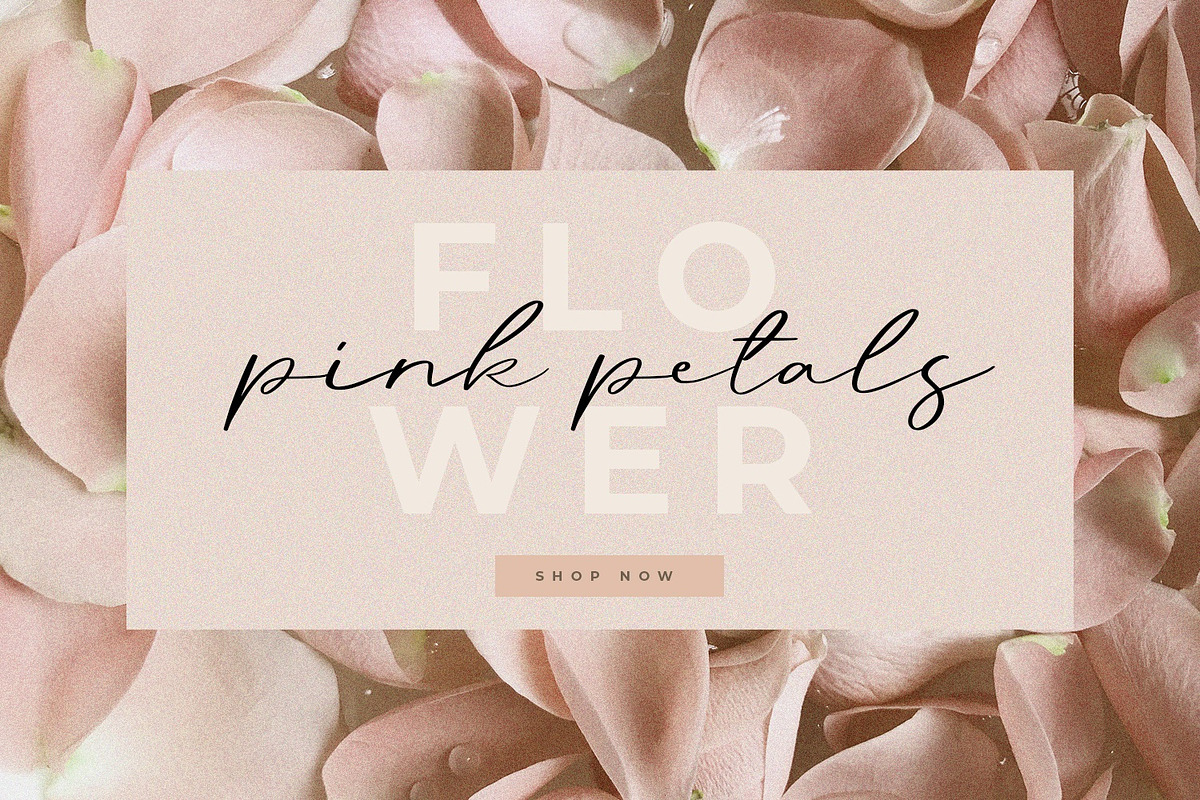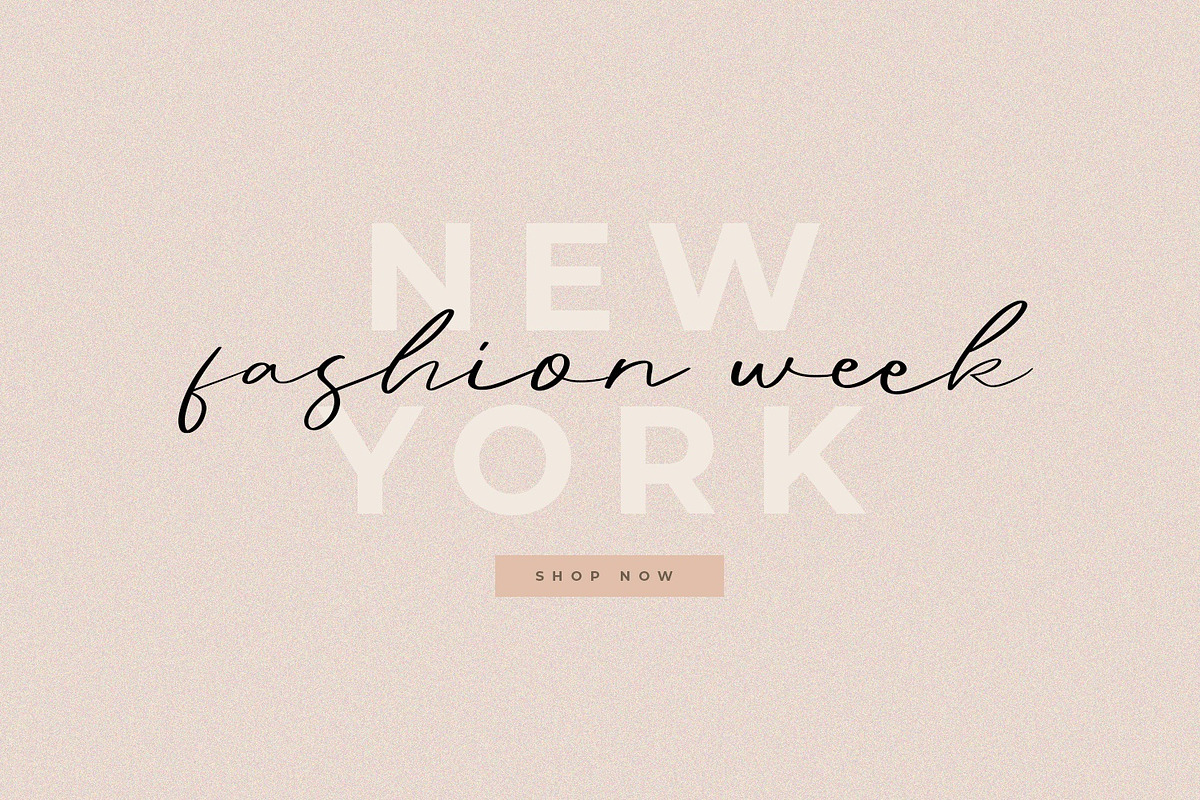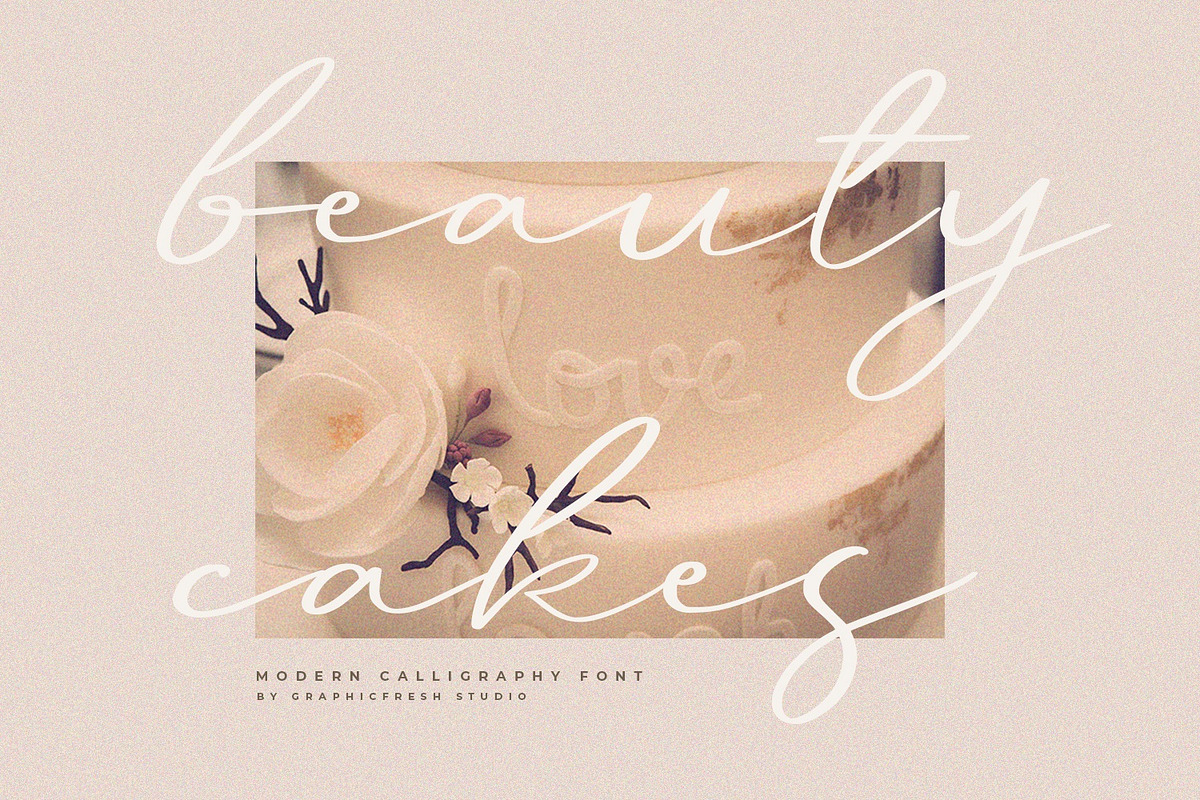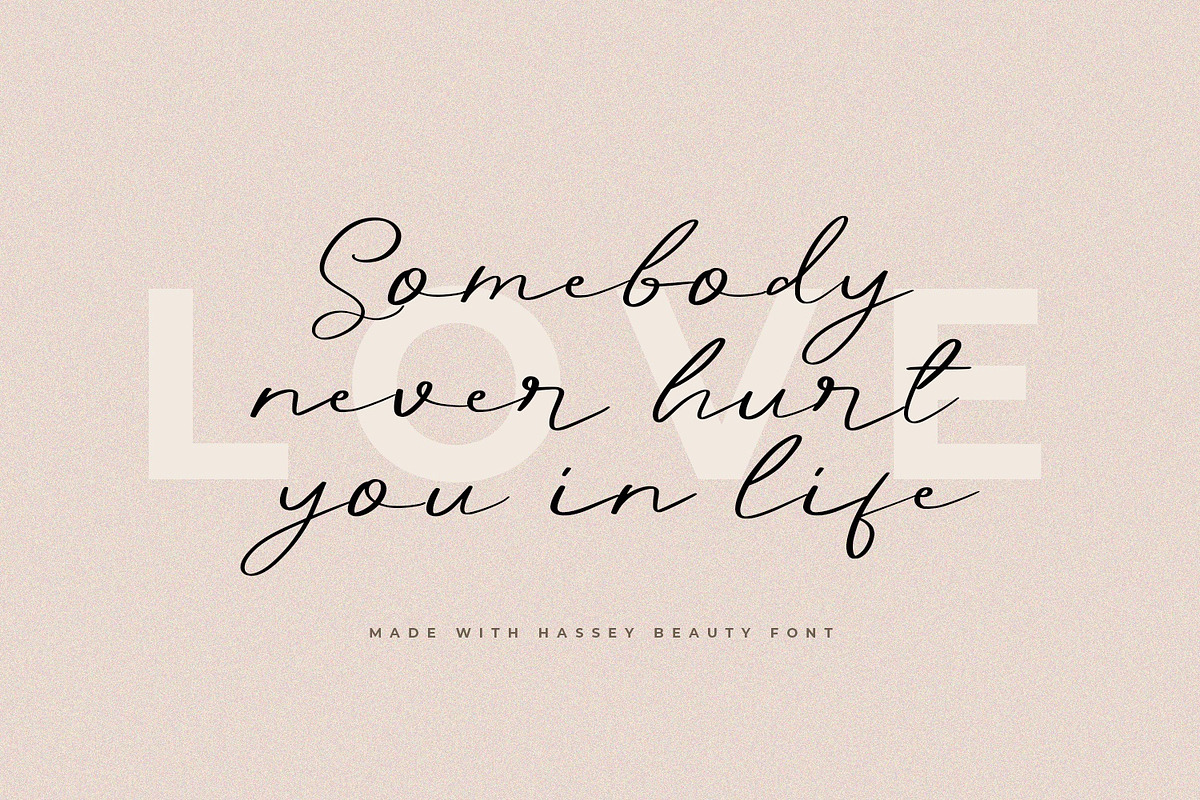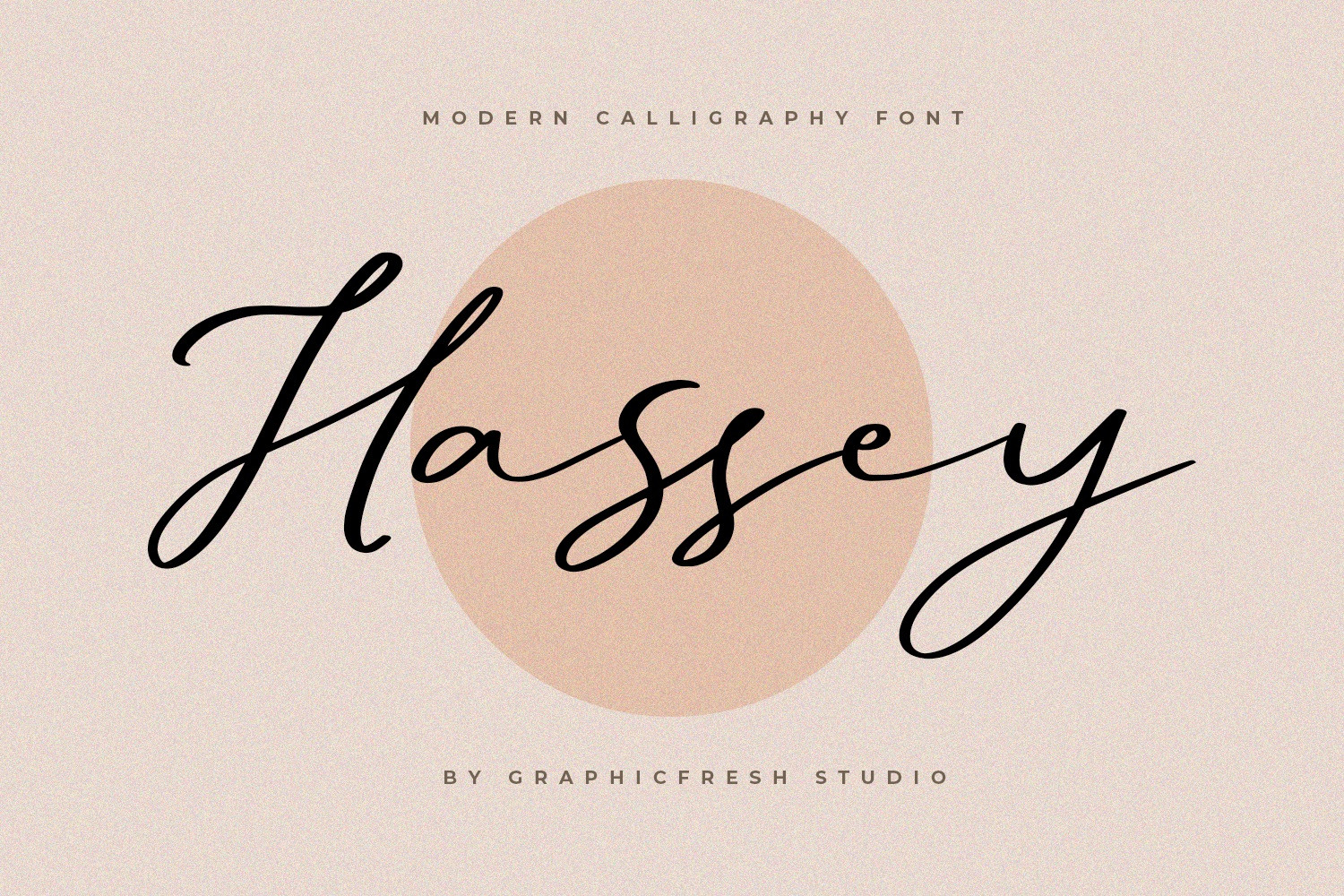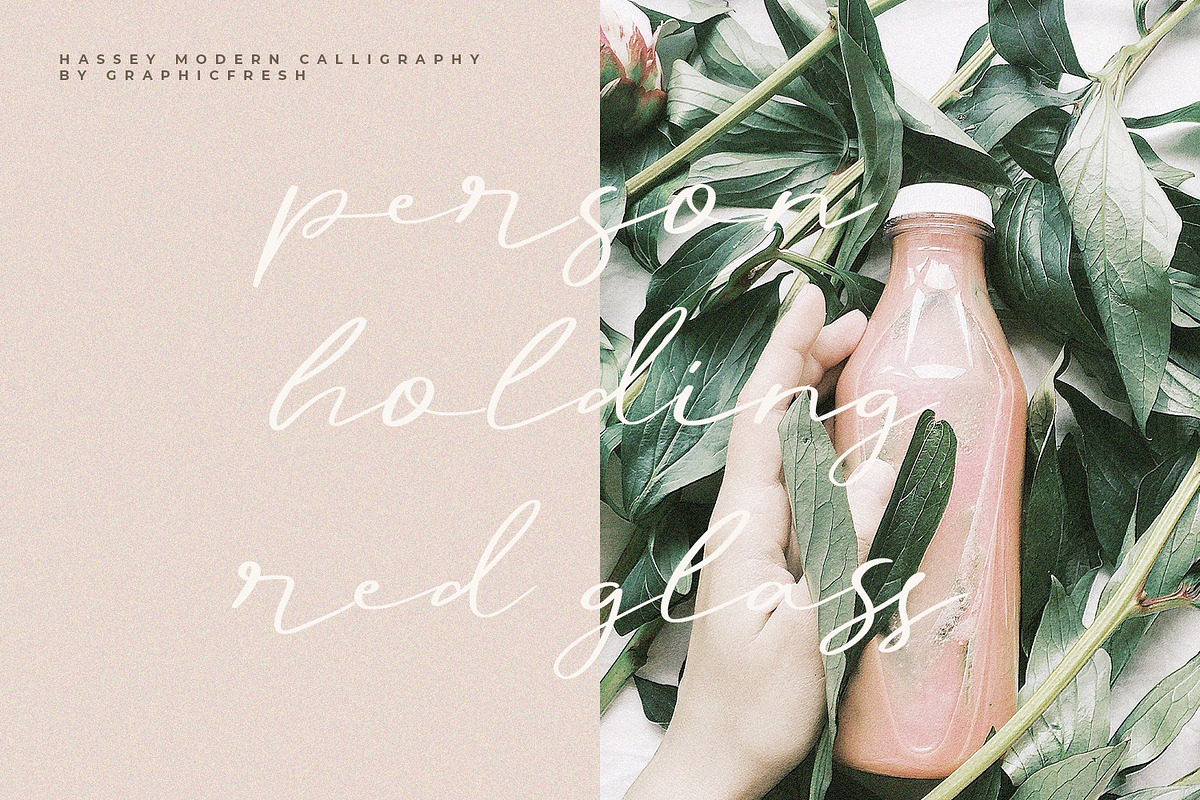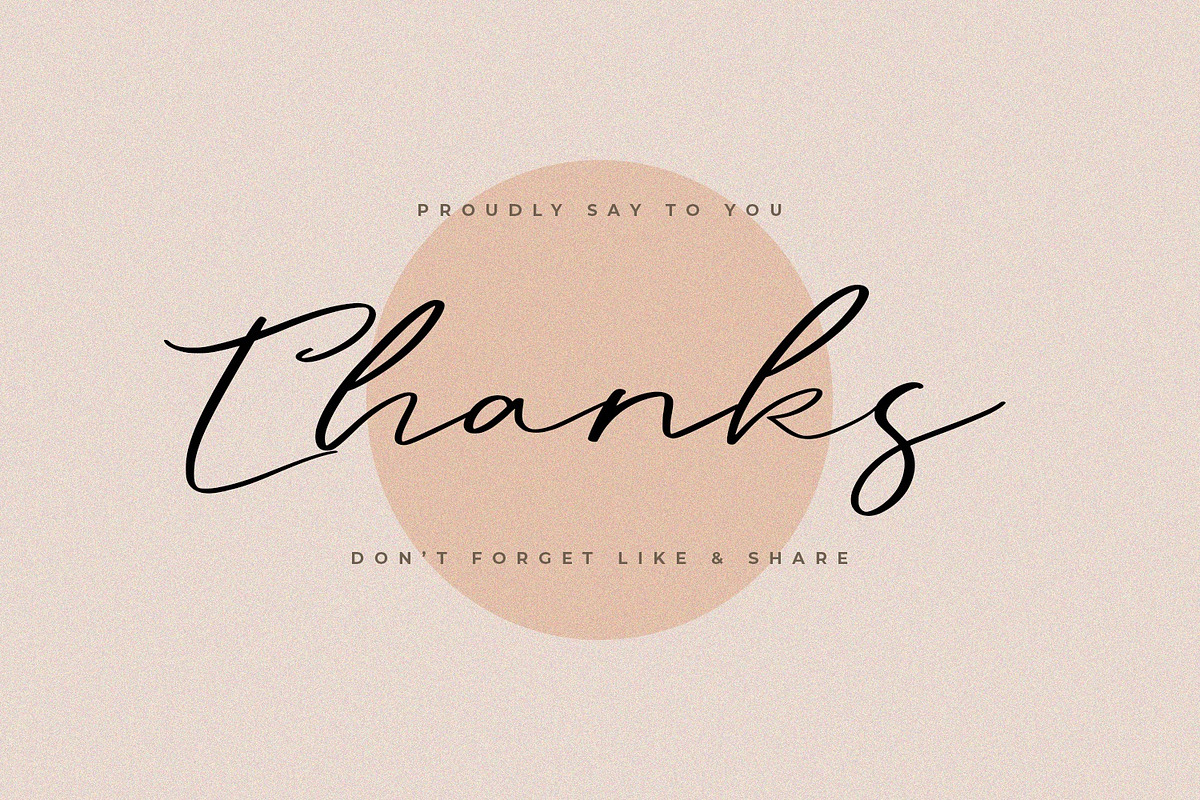
Hassey - A Modern Calligraphy Font
Introducing Hassey - A Modern Calligraphy Font. It comes with an elegant and feminine style which is perfect to make any design stand out! This font is perfect for branding, wedding invites, magazines, mugs, business cards, quotes, posters, and more.
Hassey Type Features:
- Suitable for Headlines, Logotypes, Signs, Posters, Letterhead, T-Shirt and many more.